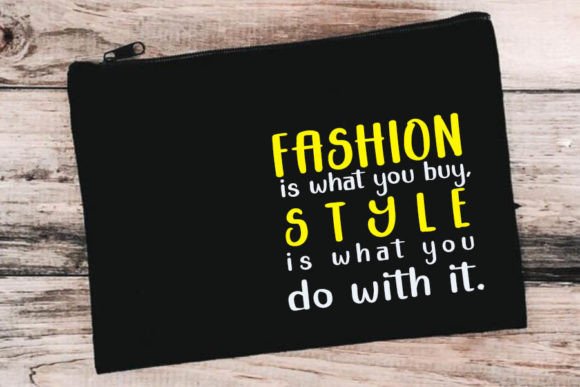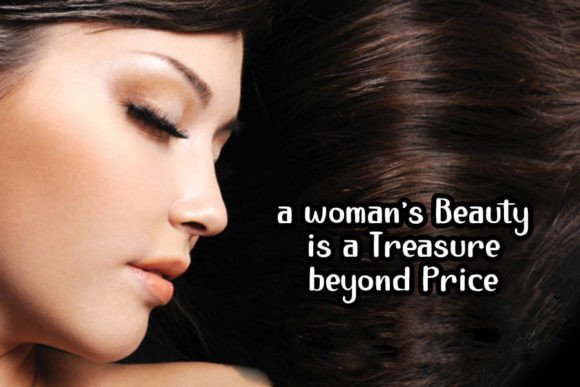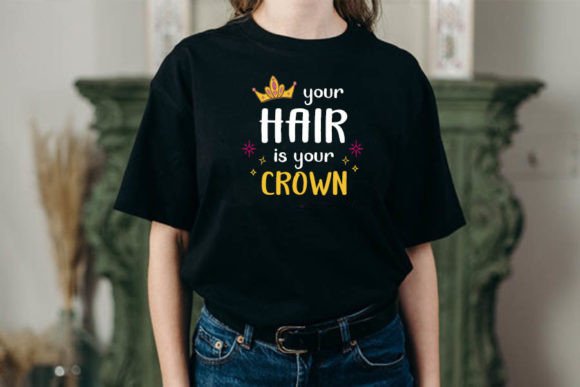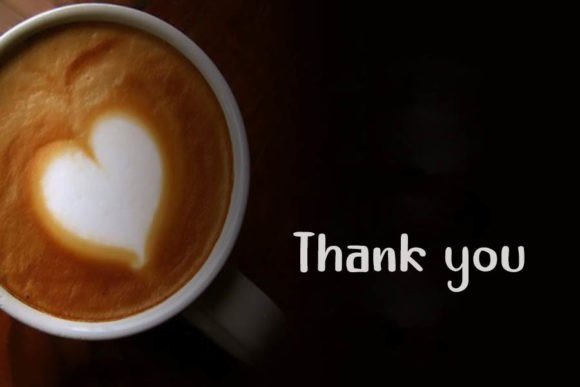
The Ultimate Guide to Hair Salon Font: Elevate Your Designs with a Personal Touch
Are you a designer or crafter looking for a unique and authentic font to add a personal touch to your designs? Look no further than the Hair Salon font! This beautiful handwritten font is perfect for creating chalkboard quotes, teaching materials, and a wide range of other design projects. In this article, we’ll explore the features and benefits of the Hair Salon font, and show you how to make the most of this versatile typeface.
What is Hair Salon Font?
Hair Salon is a handwritten font that is designed to mimic the authentic look of chalkboard writing. Its unique and personal style makes it perfect for adding a touch of warmth and character to your designs. Whether you’re creating logos, wedding invitations, headings, t-shirts, letterhead, signage, labels, news, posters, badges, or any other type of design project, the Hair Salon font is sure to impress.
Key Features of Hair Salon Font
- Authentic Handwritten Look: The Hair Salon font has a genuine handwritten look that will add a personal and realistic feel to your designs.
- Versatile: This font can be used for a wide range of purposes, from logos and wedding invitations to headings, t-shirts, and more.
- Easy to Read: The Hair Salon font is clear and easy to read, making it perfect for use in teaching materials, signage, and other applications where legibility is important.
- Unique and Personal: The Hair Salon font has a unique and personal style that will help your designs stand out from the crowd.
Benefits of Using Hair Salon Font
So why choose the Hair Salon font for your design projects? Here are just a few benefits of using this amazing typeface:
- Adds a Personal Touch: The Hair Salon font adds a personal and realistic feel to your designs, making them more engaging and relatable.
- Increases Legibility: The clear and easy-to-read design of the Hair Salon font makes it perfect for use in teaching materials, signage, and other applications where legibility is important.
- Versatile: The Hair Salon font can be used for a wide range of purposes, making it a great addition to any designer’s toolkit.
Using Hair Salon Font in Your Designs
So how can you use the Hair Salon font in your designs? Here are a few ideas to get you started:
- Chalkboard Quotes: Use the Hair Salon font to create authentic-looking chalkboard quotes that add a personal touch to your designs.
- Wedding Invitations: Add a touch of elegance and sophistication to your wedding invitations with the Hair Salon font.
- Headings and Titles: Use the Hair Salon font to create eye-catching headings and titles that add a personal touch to your designs.
- T-Shirts and Merchandise: Create custom t-shirts, mugs, and other merchandise with the Hair Salon font for a unique and personalized look.
Tips and Tricks for Getting the Most Out of Hair Salon Font
Here are a few tips and tricks for getting the most out of the Hair Salon font:
- Experiment with Different Sizes and Colors: Try out different sizes and colors of the Hair Salon font to find the perfect look for your design.
- Combine with Other Fonts: Combine the Hair Salon font with other fonts to create a unique and eye-catching design.
- Use in Digital and Print Designs: The Hair Salon font can be used in both digital and print designs, making it a versatile addition to any designer’s toolkit.
In conclusion, the Hair Salon font is a versatile and authentic handwritten typeface that is perfect for adding a personal touch to your designs. With its unique and personal style, ease of use, and versatility, this font is a great addition to any designer’s toolkit. Whether you’re creating chalkboard quotes, wedding invitations, headings, t-shirts, or any other type of design project, the Hair Salon font is sure to impress.